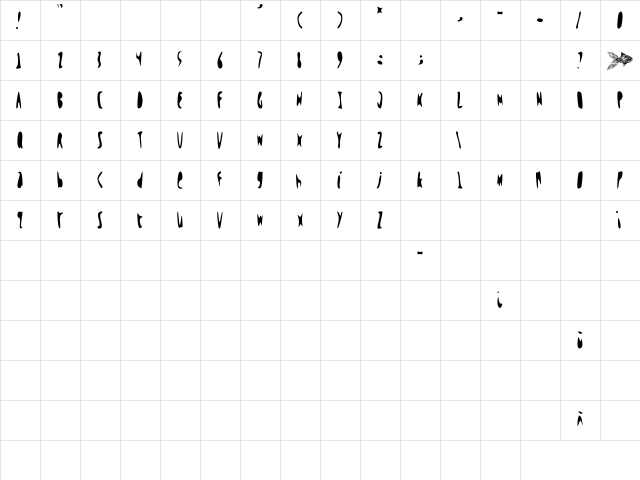
WOH C'MON!
| Designer | *dibujado* |
Design Context for WOH Typeface
WOH is a composed and adaptable typeface that performs quietly and consistently across a wide range of design contexts.